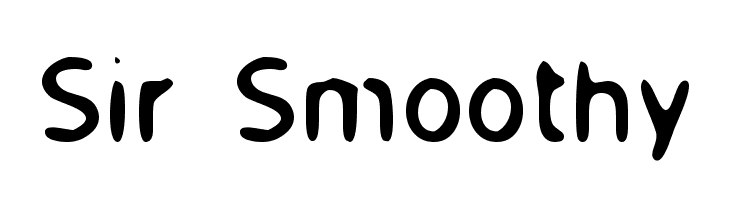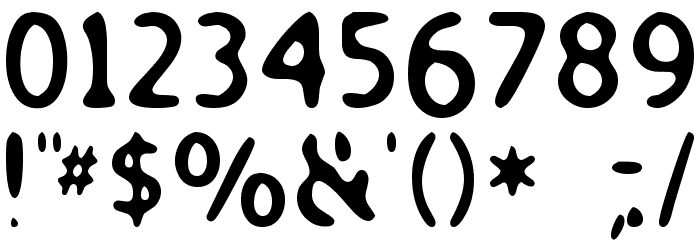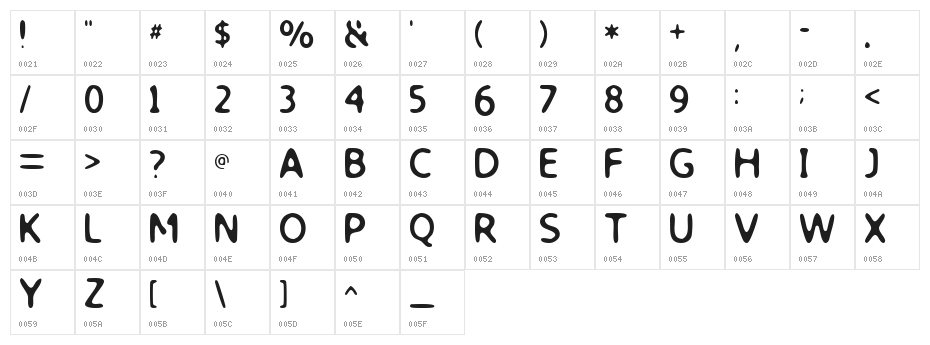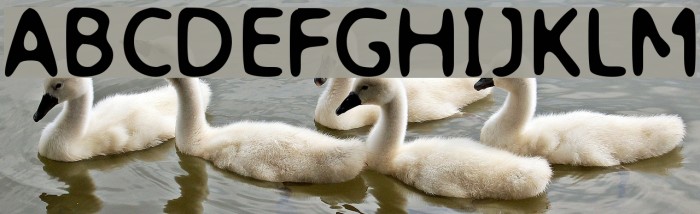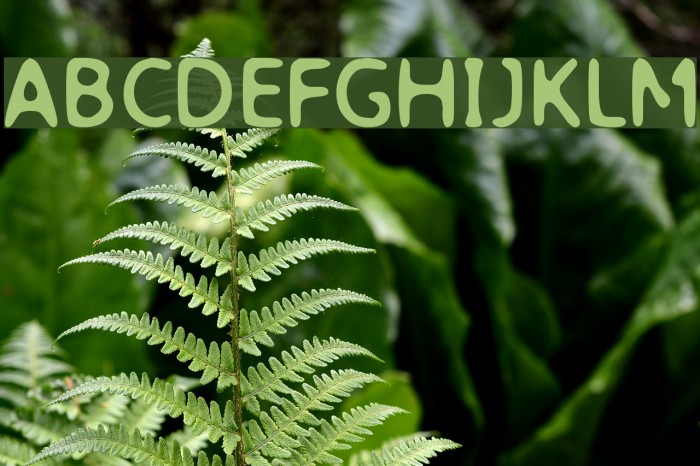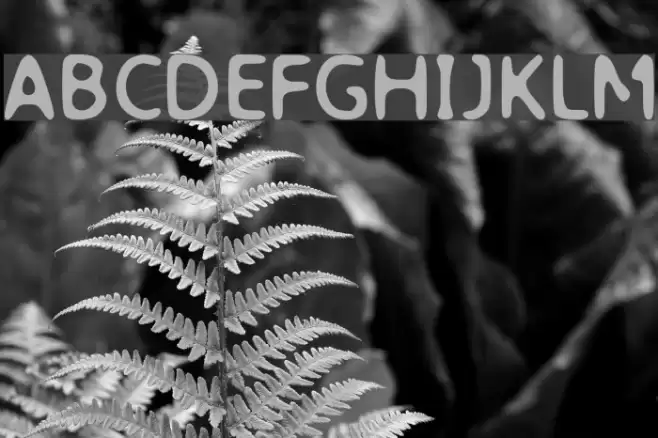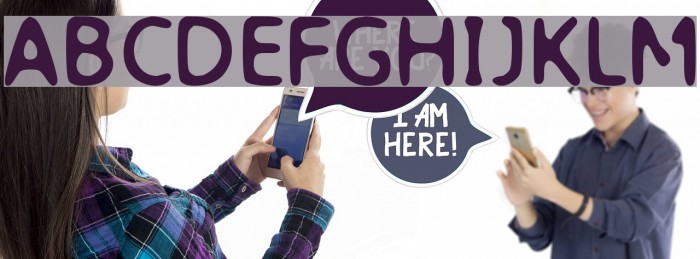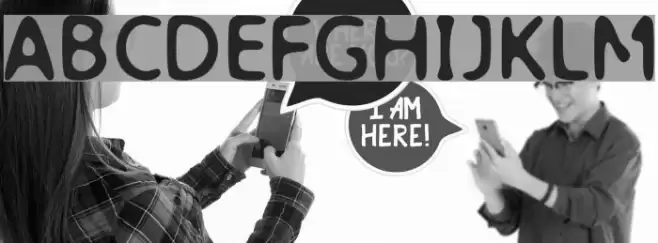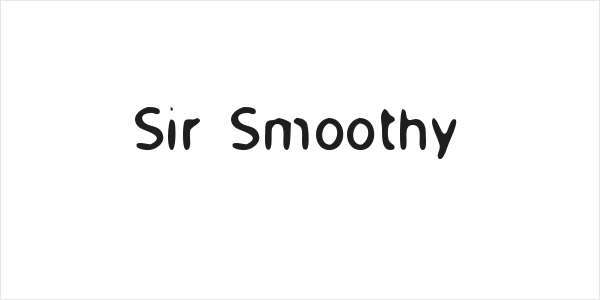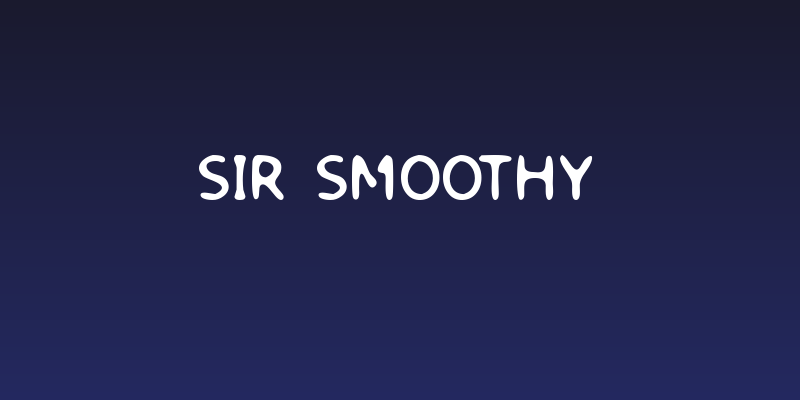
Sir Smoothy Font
Sir Smoothy Description
This font features a playful and rounded style with a smooth, flowing appearance. The characters exhibit a consistent thickness, giving them a bold and friendly look. The rounded edges and slightly irregular shapes add a whimsical touch, making it suitable for creative and informal designs. The font maintains a uniform stroke width, contributing to its approachable and easy-to-read nature. Its unique character shapes, such as the distinctive curves and loops, enhance its charm and make it stand out in various design contexts.
| Proposed Projects | Ideal for children's books, playful branding, casual invitations, and creative posters. |